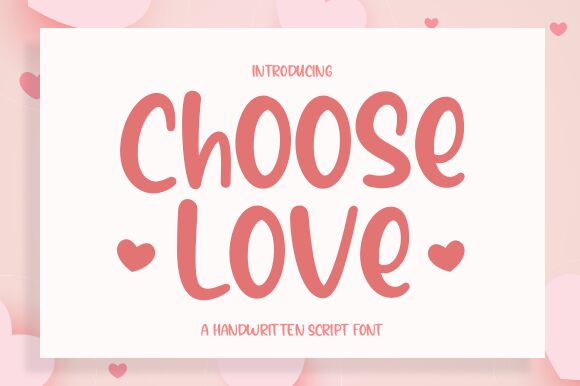
Choose Love is a delightful and captivating font designed by Graphix Line Studio. With its smooth brush style and bold weight, this font adds a touch of charm to any project. Its versatility makes it perfect for a wide range of creative endeavors, such as children's book illustrations, greeting cards, logo designs, and social media graphics. Whether you're aiming for an adorable aesthetic or seeking to infuse warmth into your designs, Choose Love font is the ideal choice for those who appreciate cute and whimsical typography.